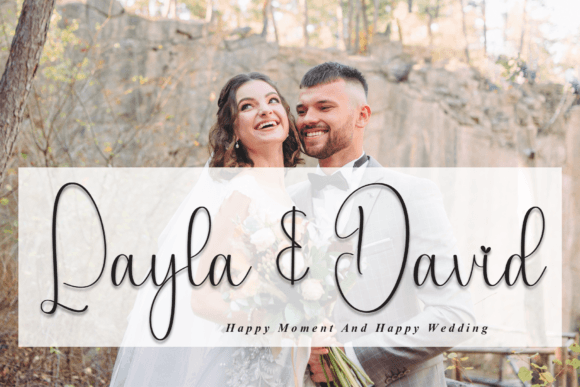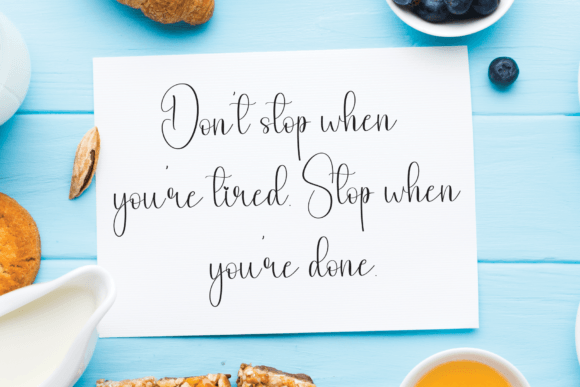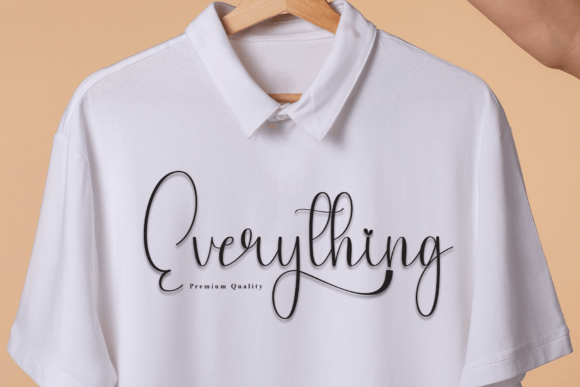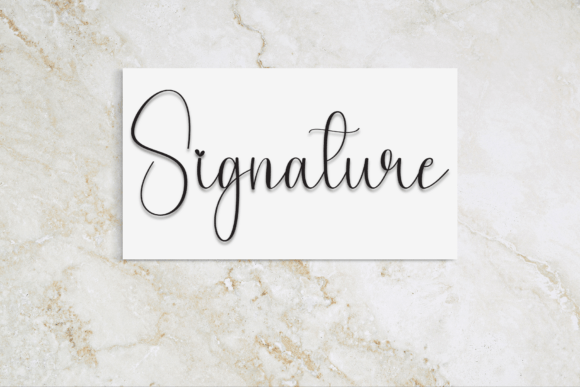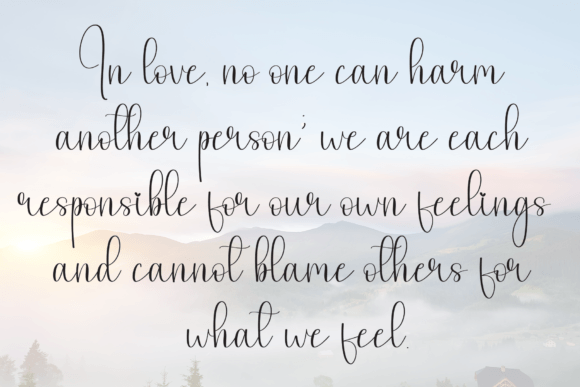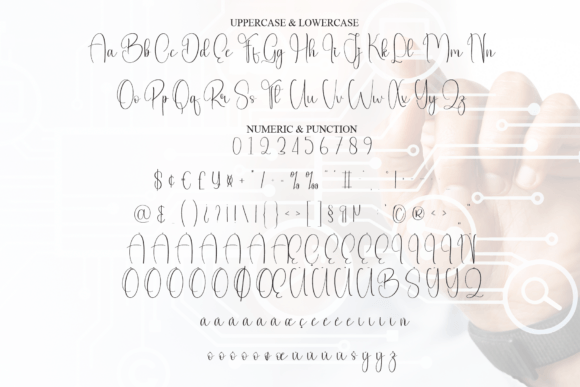
Introducing Digital: The Elegant Handwritten Script Font
In the world of digital design, typography plays a crucial role in conveying the tone and personality of a brand or creative project. A stylish font can elevate a design from ordinary to extraordinary, and Digital, a beautiful handwritten script font, is no exception. With its fluid strokes and natural flow, Digital exudes elegance and charm, making it perfect for adding a personal touch to various design projects.
The Characteristics of Digital Font
Digital is a carefully crafted handwritten script font that boasts a sophisticated and captivating look. Its fluid strokes and natural flow create a sense of movement and fluidity, making it perfect for designs that require a touch of elegance and refinement. The font’s unique characteristics include:
• Fluid strokes: Digital’s fluid strokes give it a natural, handwritten feel that’s perfect for creating a sense of warmth and approachability in designs.
• Natural flow: The font’s natural flow creates a sense of movement and fluidity, making it perfect for designs that require a touch of elegance and refinement.
• Elegant and charming: Digital’s elegant and charming appearance makes it perfect for adding a personal touch to invitations, branding, or social media designs.
Uses of Digital Font
Digital is a versatile font that can be used in a variety of design projects, including:
• Invitations: Add a personal touch to wedding invitations, birthday invitations, or any other type of invitation with Digital’s elegant and charming appearance.
• Branding: Use Digital to create a unique and memorable brand identity that exudes elegance and sophistication.
• Social media: Elevate your social media designs with Digital’s fluid strokes and natural flow, perfect for creating engaging and eye-catching graphics.
• Stationery: Add a touch of elegance to your stationery designs, including business cards, letterheads, and envelopes.
Benefits of Using Digital Font
Using Digital in your designs offers several benefits, including:
• Unique and memorable: Digital’s elegant and charming appearance makes it perfect for creating unique and memorable designs that stand out from the crowd.
• Versatile: The font’s versatility makes it suitable for a wide range of design projects, from invitations to branding and social media.
• Easy to read: Digital’s clear and flowing script makes it easy to read, even at small font sizes.
Tips for Using Digital Font
To get the most out of Digital, here are some tips to keep in mind:
Digital is a beautiful handwritten script font that exudes elegance and charm. Its fluid strokes and natural flow create a captivating and sophisticated look, making it perfect for adding a personal touch to various design projects. With its versatility, ease of use, and customizable features, Digital is a great addition to any designer’s font collection.